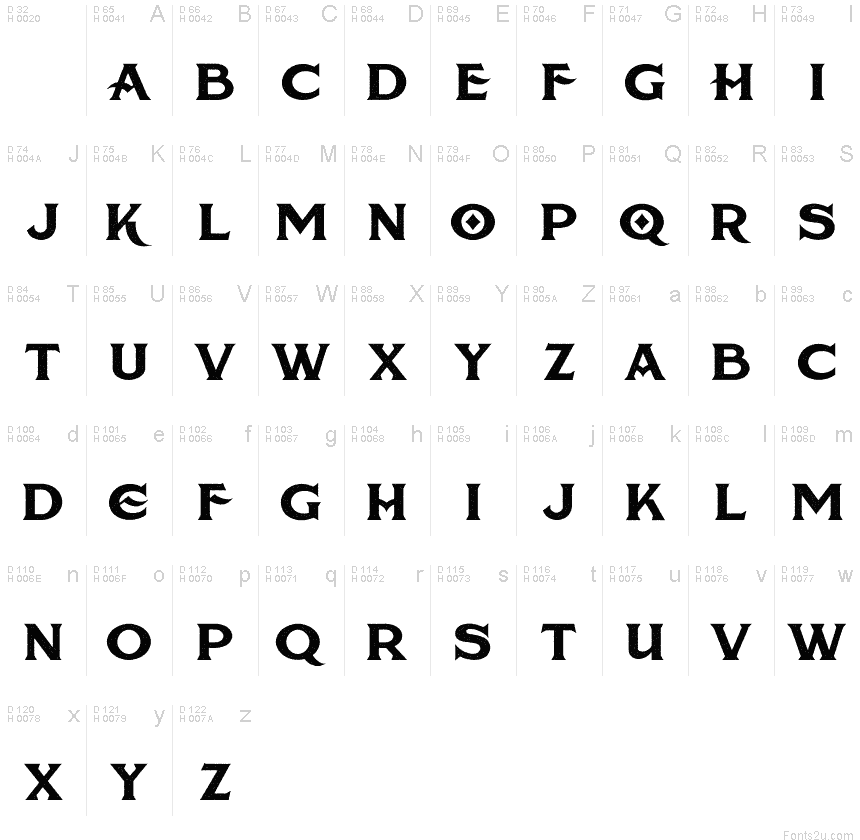
American Brewery Rough is a free retro display font by Gilang Purnama Jaya, drawn with the swagger of old tavern signs and Western showbills. Its broad capitals combine slab-like serifs with sharp inward notches and pointed decorative cuts. A speckled surface gives the sturdy forms a weathered print texture.
Craft breweries and barbecue restaurants could use it for labels, menus, and signage. It has a direct, rough-hewn voice. In publishing, its carved shapes suit frontier-themed covers and feature openers.